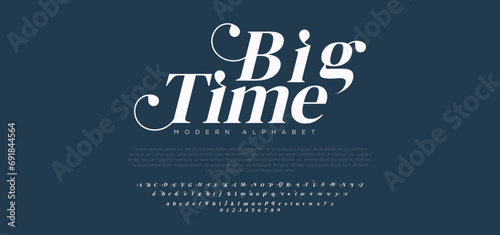
Elegant awesome alphabet letters font and number. unique serif font. Classic Lettering Minimal Fashion Designs. Typography modern serif fonts regular decorative vintage concept. vector illustration